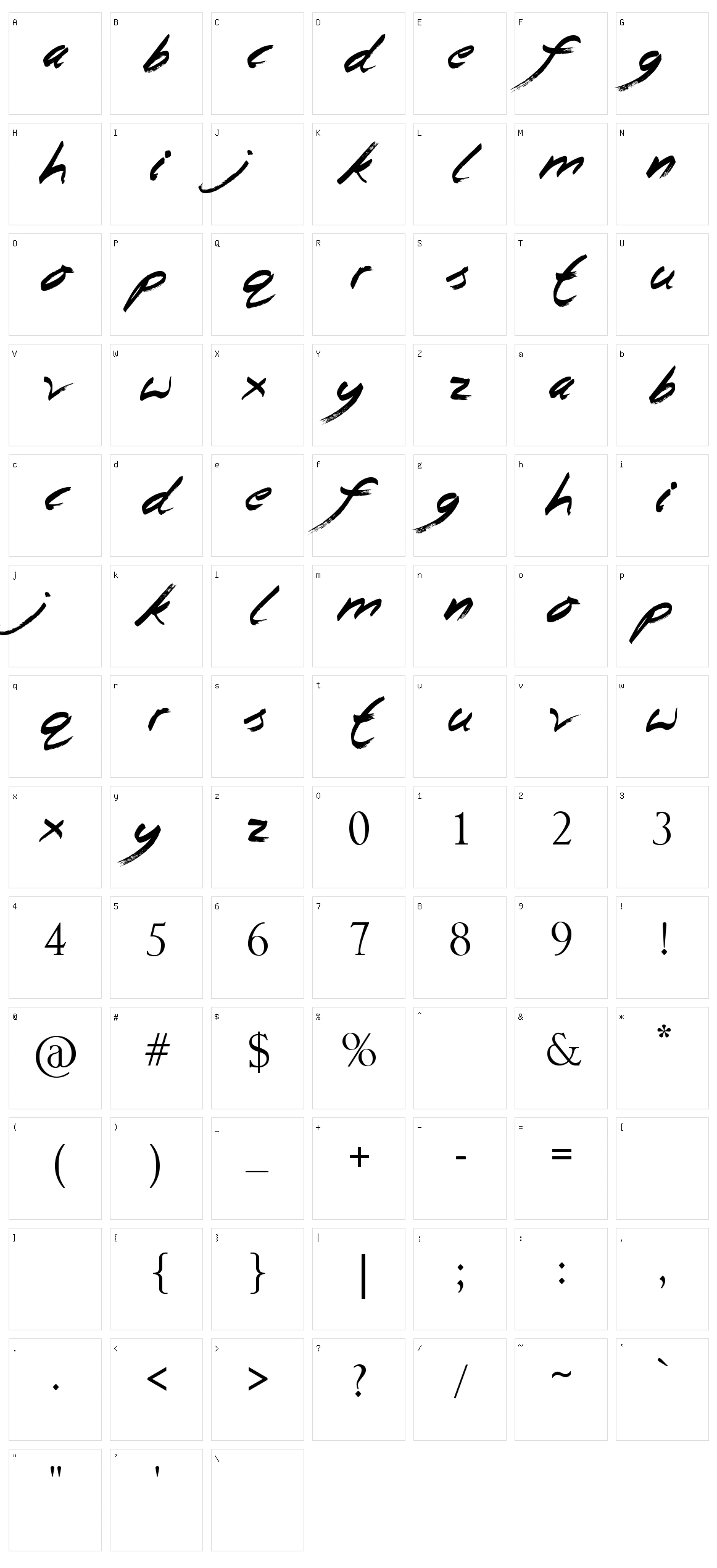
The free font Beginning Yoga is carefully designed by JSH creates, showcasing a thoughtful balance of creativity and usability and falls under the Script font style. When you download the ZIP file, it contains only 25.68 KB of font files, making it lightweight and quick to download. Please review the license details below to understand permitted usage and distribution rights. If license information is not available, we recommend using this font for personal projects only or contacting the author directly for commercial usage permissions.